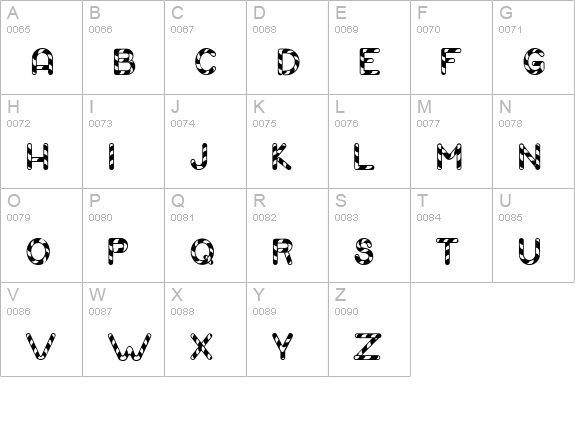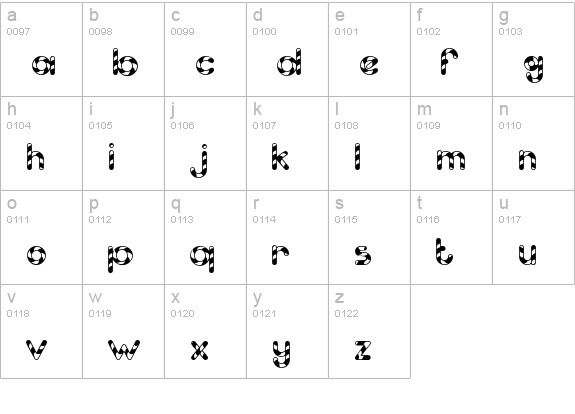
Introducing Candy Cane (Unregistered), a delightful and whimsical font that will add a touch of sweetness to any project. This font captures the essence of the holiday season with its playful curves and charming details. It is the perfect choice for creating eye-catching designs, invitations, greeting cards, and more. Candy Cane (Unregistered) font is the epitome of fun and festivity, making it ideal for capturing the spirit of Christmas, birthdays, or any joyful occasion. Its unique and distinctive letterforms are sure to leave a lasting impression on your audience. What makes this font even more enticing is that it is freely available to download at FontsMarket.com. Yes, you read that right – it's completely free! Now you can add a touch of whimsy to your designs without breaking the bank. Whether you're a professional designer or a hobbyist, Candy Cane (Unregistered) font offers endless possibilities for your creative endeavors. So why wait? Download Candy Cane (Unregistered) font today and let your imagination run wild. Spread the joy and bring a smile to everyone's face with this delightful and freely available font.